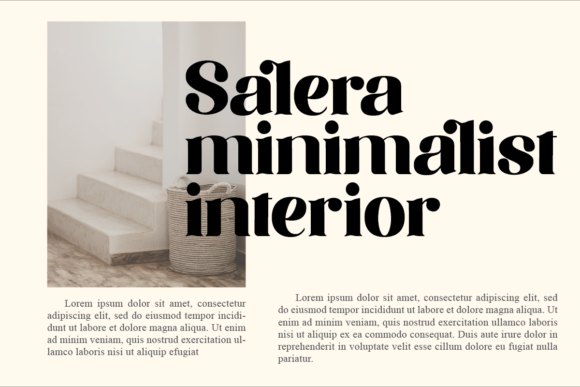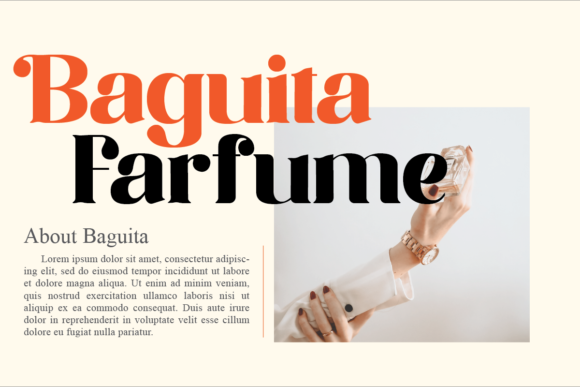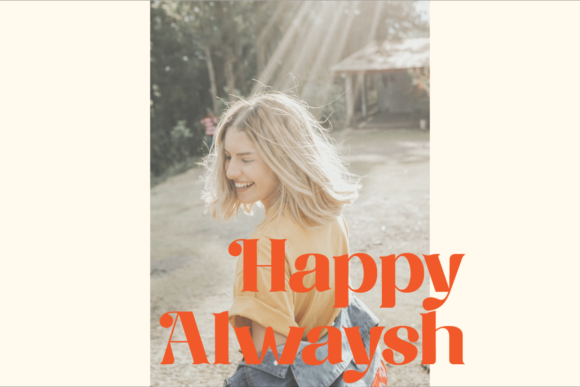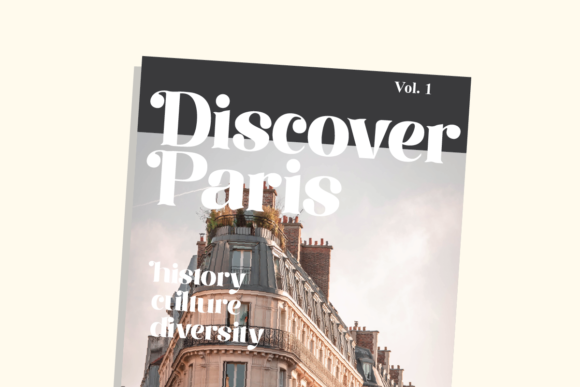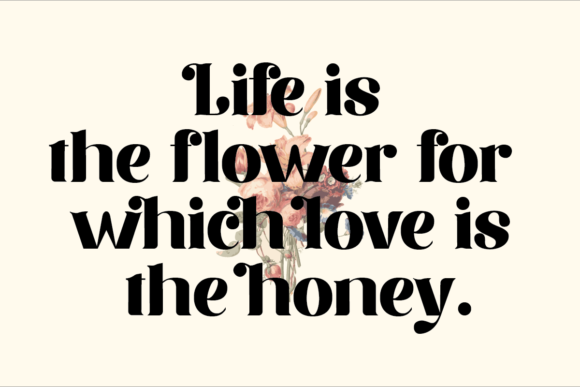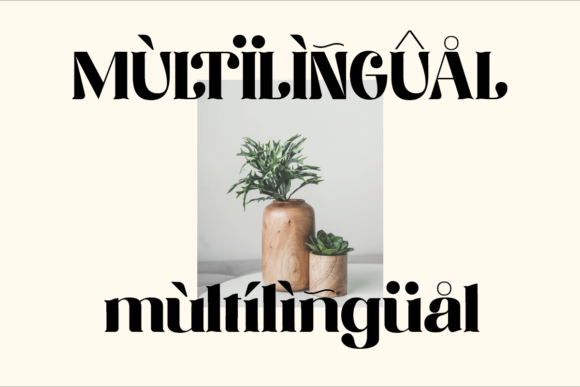
Introduction to Merdian Font
Merdian Modern Bold serif Font typeface with beautiful alternate, special glyphs, ornament, and multilingual support.
It’s a very versatile font that works great in large and small sizes Perfect for editorial projects, Logo design, Clothing Branding, product packaging, magazine headers, or simply as a stylish text overlay to any background image.
Key Features of Merdian Font